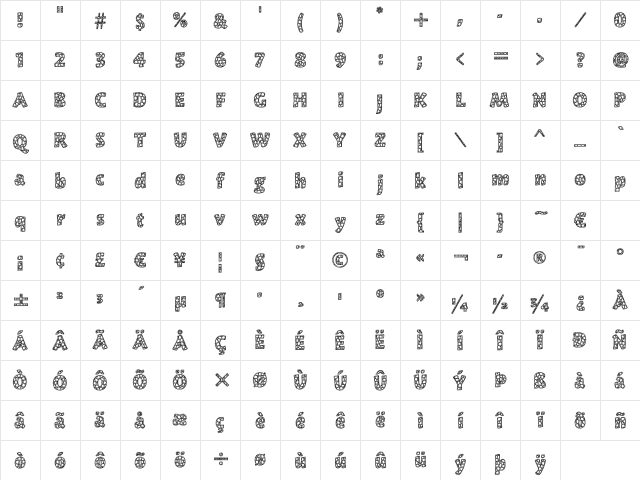
WoodsWorld 'StainedGlass' echoes the hand-painted signage and woodblock typography of the American frontier, with a warm, rugged personality.
Font Pairing: Combine WoodsWorld 'StainedGlass' with a simple slab or neutral sans - period-accurate companions reinforce the vintage feel without competing for attention.
Pro Tip: Use WoodsWorld 'StainedGlass' for short, impactful bursts of text - it shines in poster headlines and product names rather than extended copy.